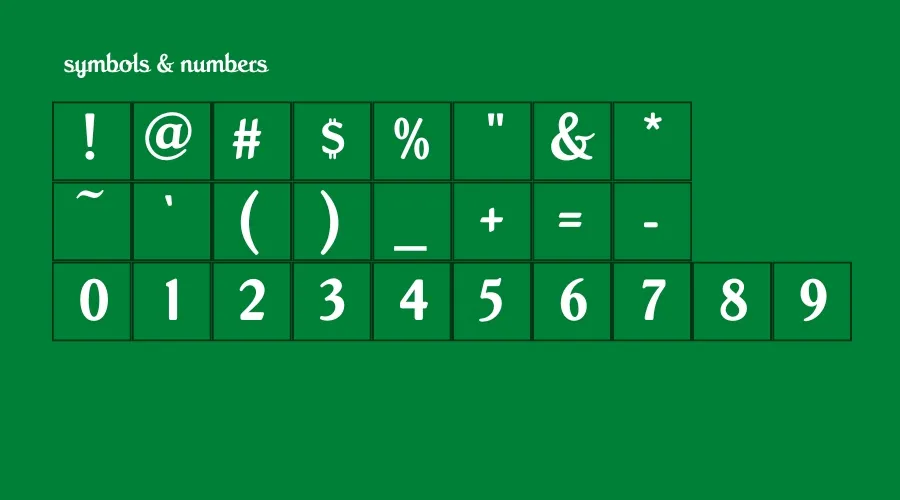
About Roman Script Font
Roman Script Font is designed by Bob McGrath in 1979 The font is flawless with titles and symbols. The font has extraordinary symbols also symbols that are perfect for making eye-catching plans.
In case you are looking in favor of a stylish and contemporary font, it is a good choice. It is moreover ideal for the sake of body cloning. You can furthermore create these fonts using an online font generator tool.
Ideal for publication projects such as company cards, flyers, and posters, you can use this font. If you want the latest font over a sleek look for your further project.
Your designs will stand out and be unique with this new type. The letters of this font demonstrate its versatility. With full concentration and experience, each letter has been created.
Therefore, its letters didn’t contain any errors. A beautiful letter will be automatically created when you type two or more letters next to each other.
This typeface is mainly used for logos, flyers, website designs, brochures, and other graphic designs. There are many great features of this awesome typeface, including a set of discretionary ligatures.
This text style contains a clear and perfect plan that’s effectively visible by it peruses. The designers can utilize this textual style for planning ebook covers, headings, brand plans, official cards, clothing, printing purposes, divider wall paintings, bulletins, menus, banners, promotions, and many more.
Any occasion will be enhanced by this beautiful, romantic font. If you want to add a little romance to your wedding invitations or simply want to make a loved one’s birthday card extra special, then this typeface is for you.
Roman Script Font View
Name | Roman Script Font |
Designer | Bob McGrath |
Style | Calligraphy |
What type is Roman Script Font?
This textual style falls in the category of script typeface which can be utilized for planning any sort of appealing venture design.
Who is the creator of Roman Script Font?
Bob McGrath is the designer of this stunning-looking text style. The originator of this textual style has worked truly well to plan this eye-catchy text style.